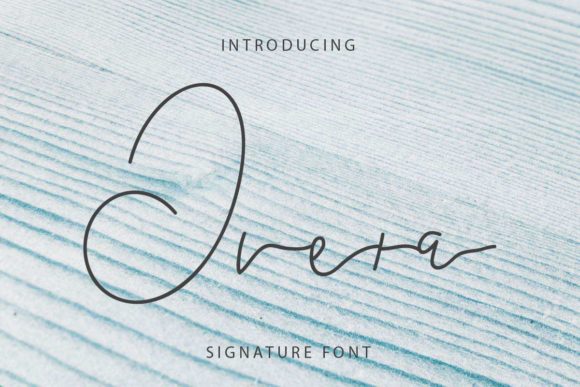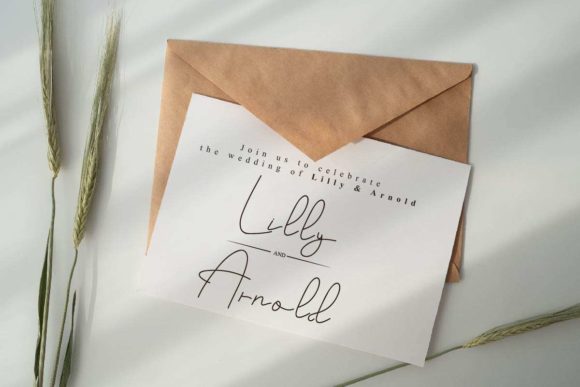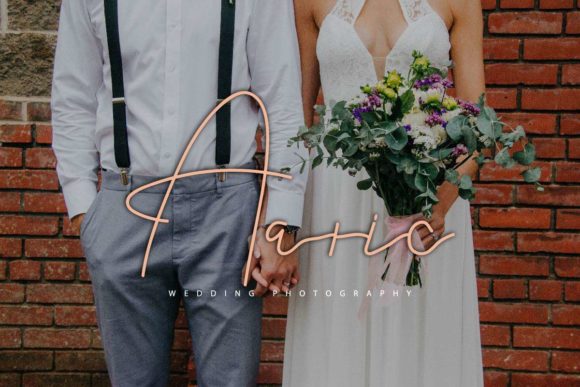
Introduction to Overa Font
Overa is inspired by classic typography and brings its own unique style to any design project.
This fantastic script font is best suited for headlines of all sizes, as well as for blocks of text that have both maximum and minimum variations Whether it’s for web, print, moving images or anything else – Overa will look spectacular.
Overa Font offers exceptional quality and versatility, making it a valuable addition to your design toolkit. Whether you’re creating for personal projects or commercial use, Overa Font delivers professional results.